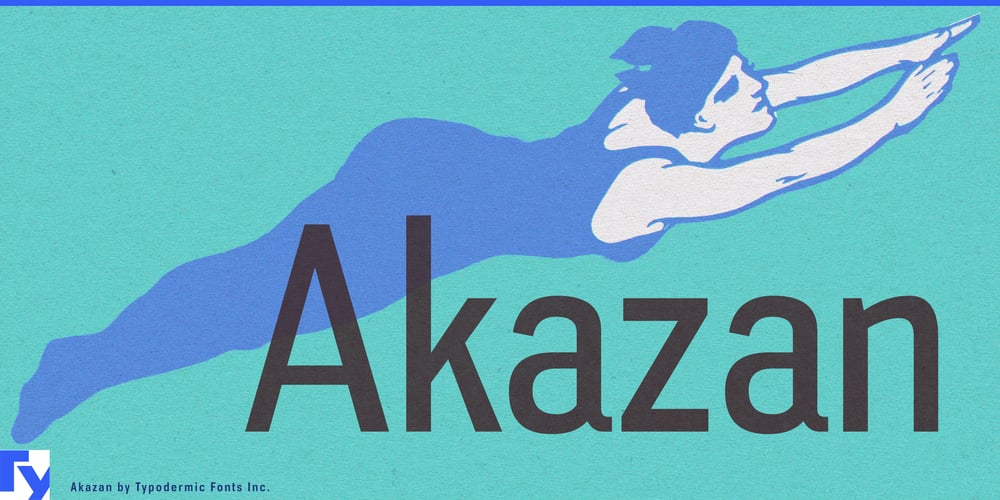
Akazan Font Family was designed by Ray Larabie and published by Typodermic. Akazan contains 8 styles and family package options. Discover Akazan, a compact sans-serif typeface that transcends conventional design boundaries. This distinctive font family fuses elements from early twentieth-century grotesque, mid-century technical, and 1990s reductionist styles, creating a typographic voice that’s truly one of a kind.Akazan’s unique character lies in its ability to evoke a ghostly sense of another era while remaining firmly rooted in contemporary design sensibilities. It’s not merely a typeface; it’s a time-traveling design tool that allows you to infuse your projects with an air of intrigue and subtle nostalgia.The versatility of Akazan shines through its range of weights, from Light to Bold, including italics. This spectrum offers designers the flexibility to fine-tune their typographic expressions, ensuring that each project—whether it’s a cutting-edge brand identity, an atmospheric editorial layout, or a futuristic user interface—captures the perfect balance of mystery and modernity.For designers seeking to break free from typographic conventions, Akazan offers a portal to new creative dimensions. Its unique blend of historical references and contemporary aesthetics makes it an invaluable asset for projects that demand both sophistication and a touch of the unexpected. Whether you’re crafting materials for a avant-garde art exhibition, a speculative fiction publication, or a tech startup with a retro-futuristic edge, Akazan provides the typographic foundation to express your ideas with impact.Embrace the extraordinary with Akazan. It’s more than just a font—it’s a statement of design intent, a bridge between past and future, and a tool for those who dare to push the boundaries of visual communication. Let Akazan transform your designs from the mundane to the mesmerizing, and watch as it becomes an indispensable element in your creative toolkit.